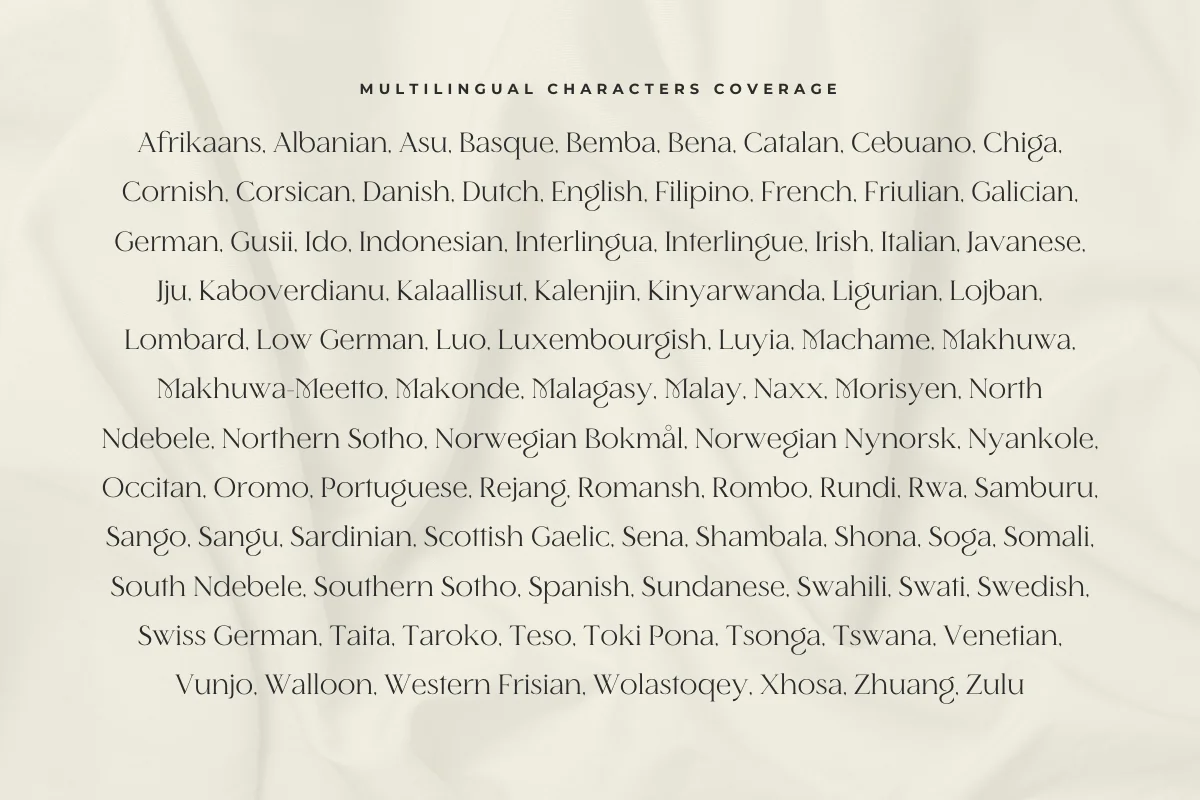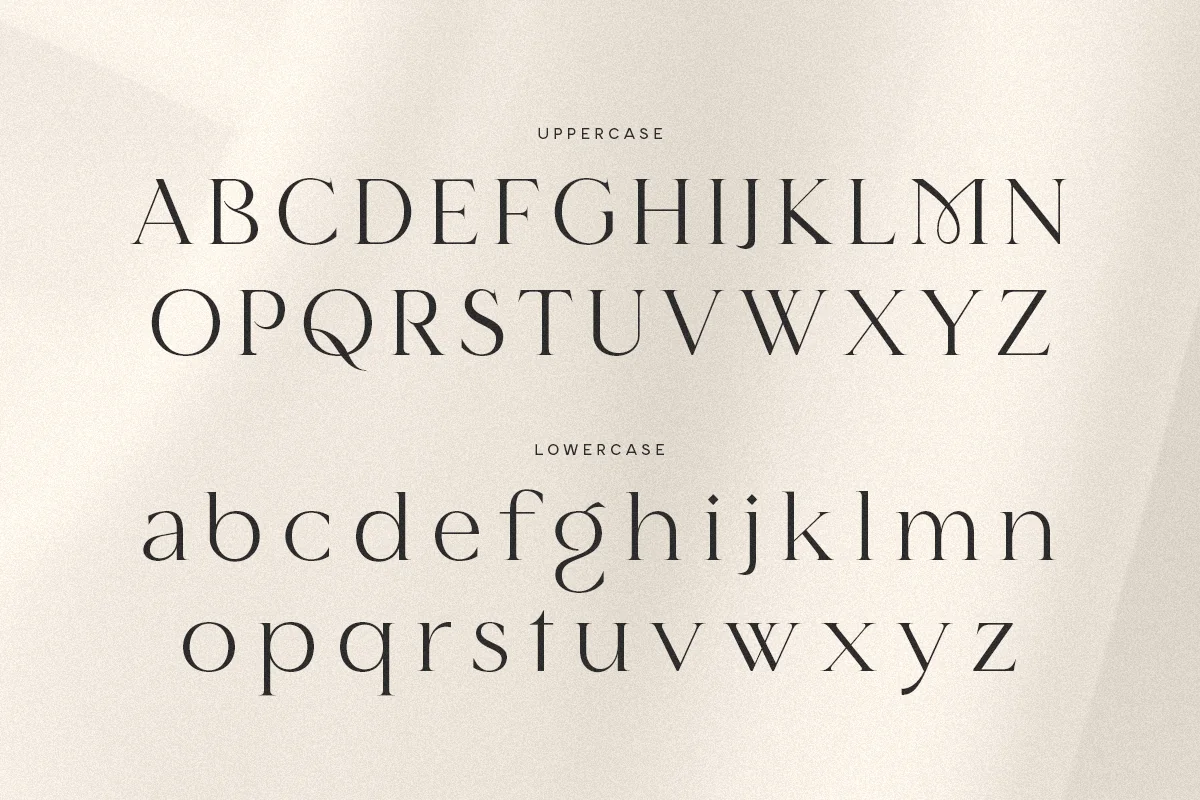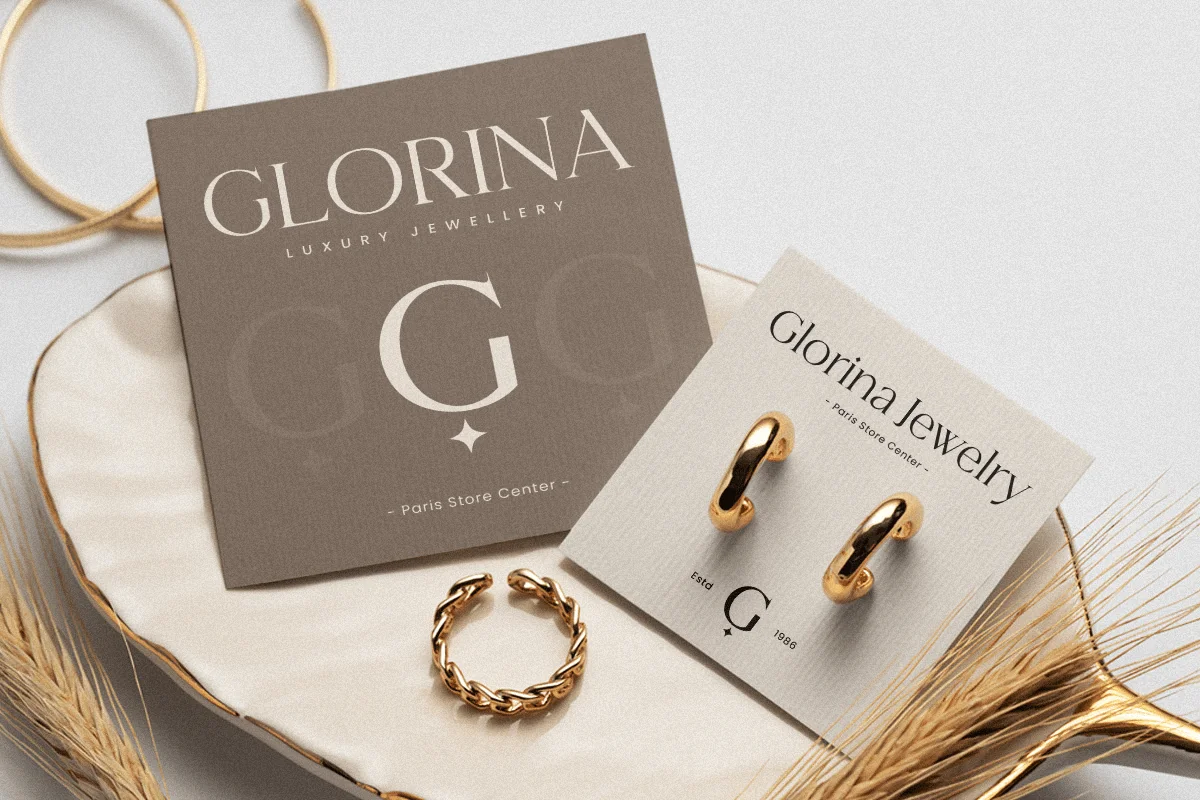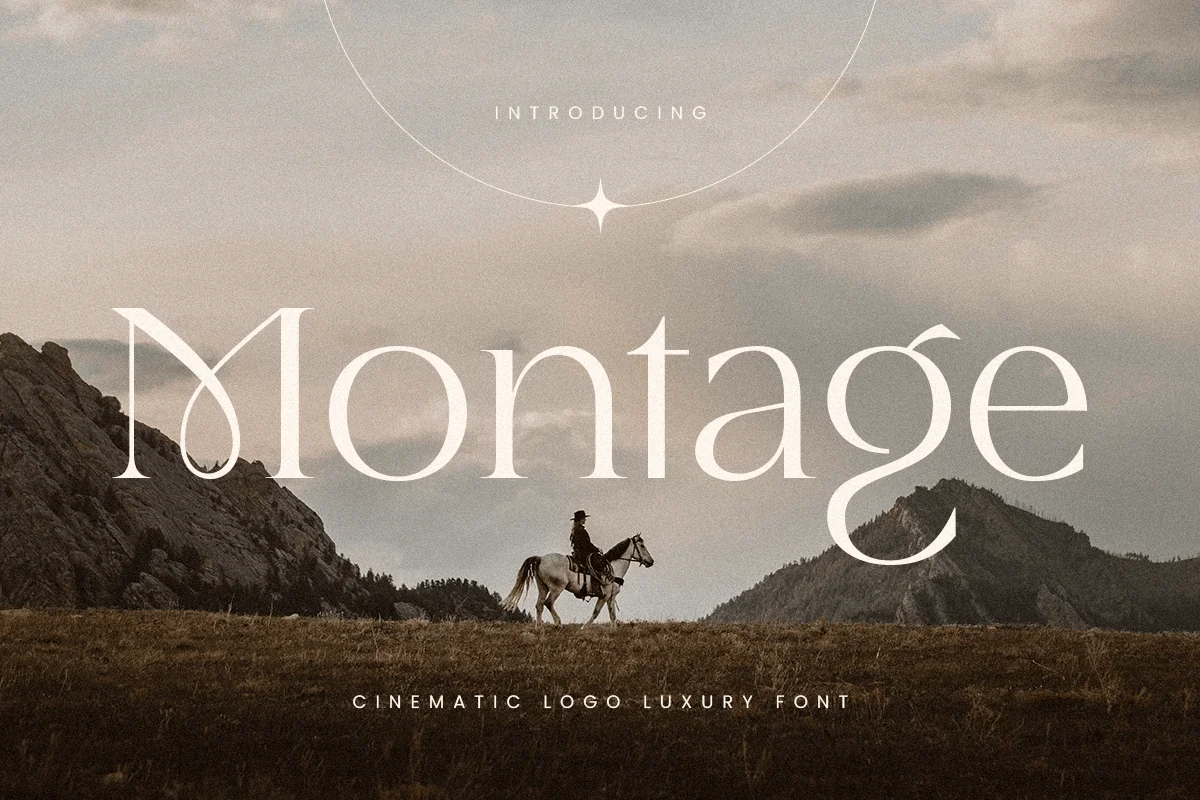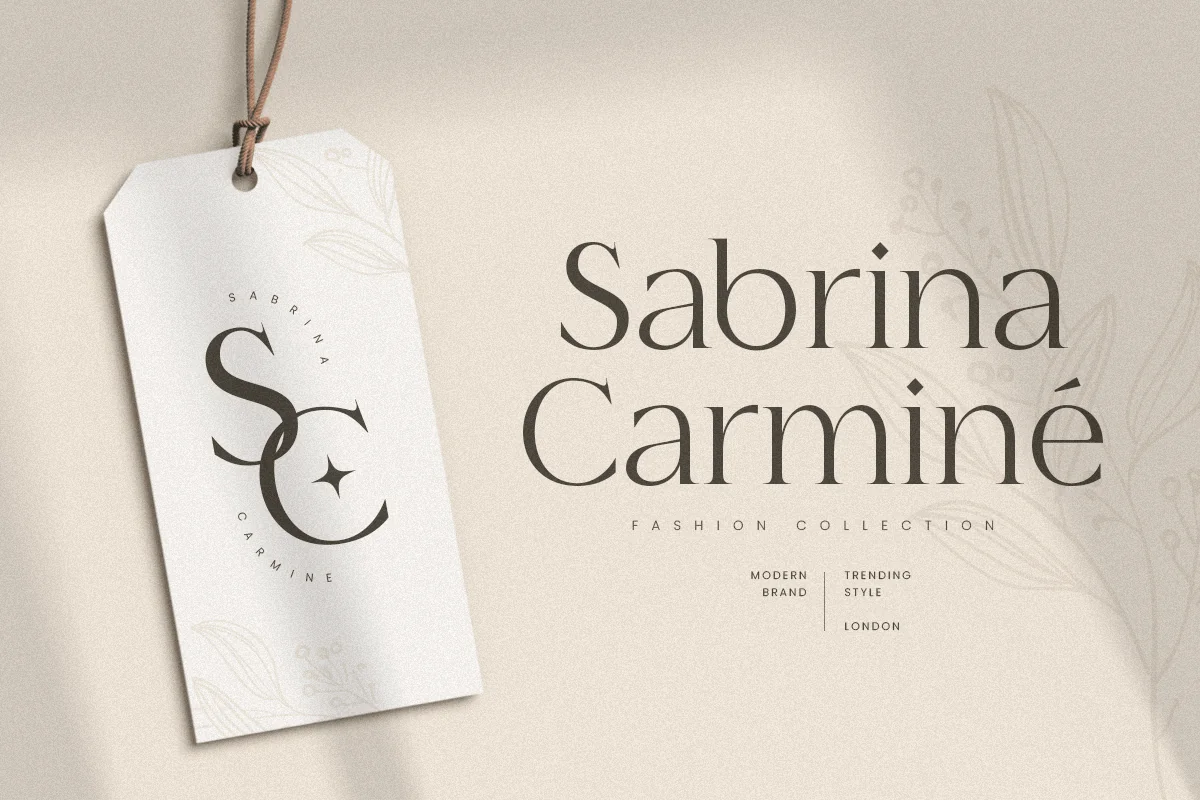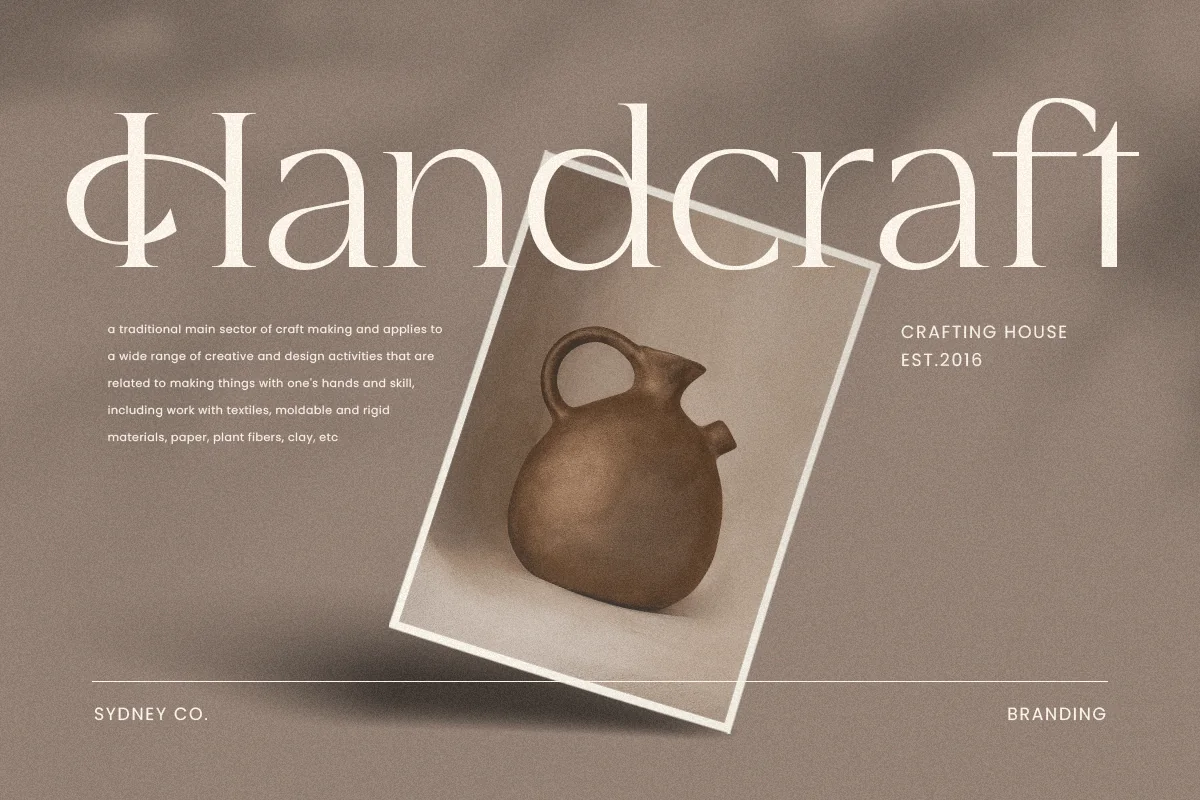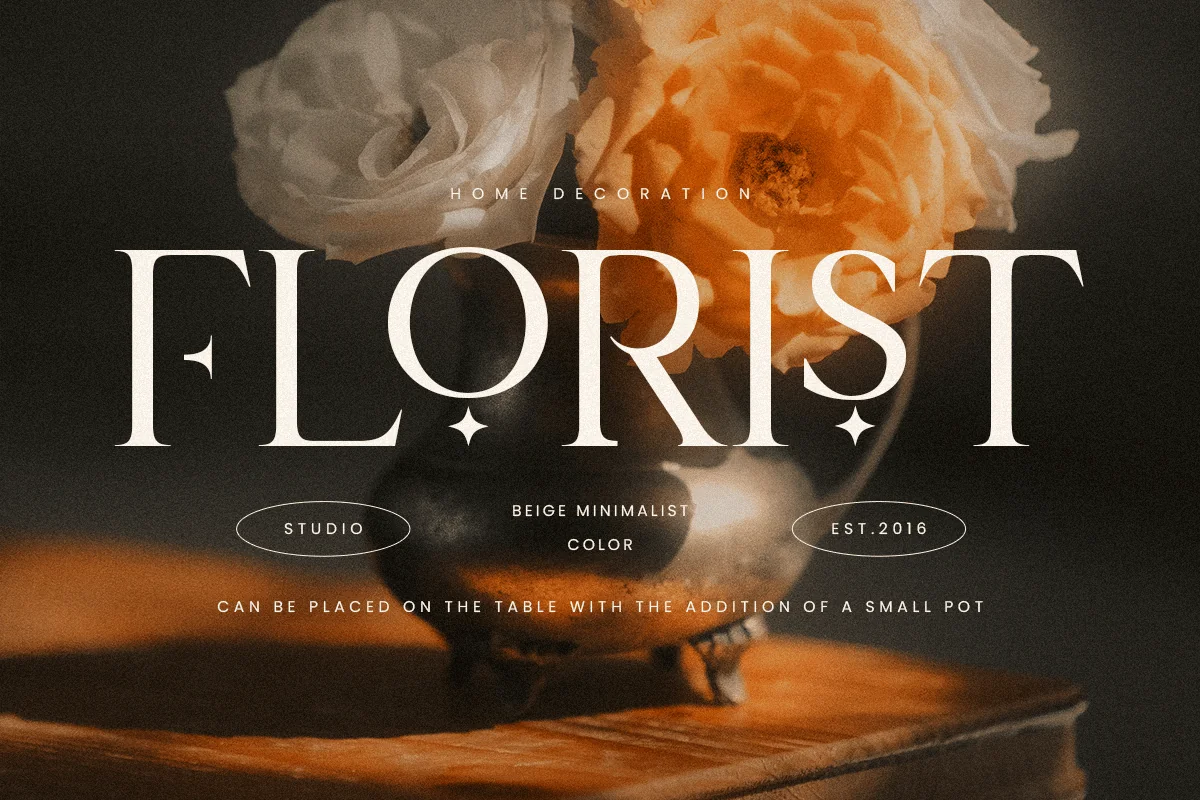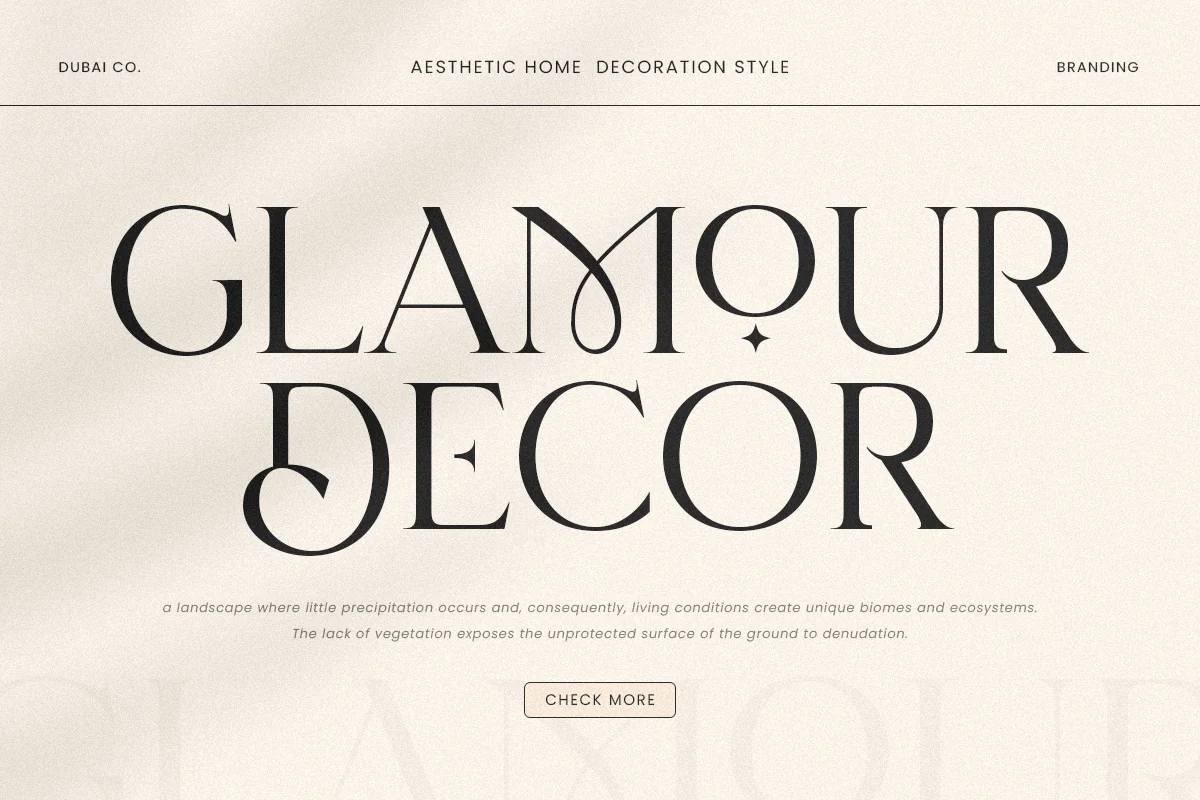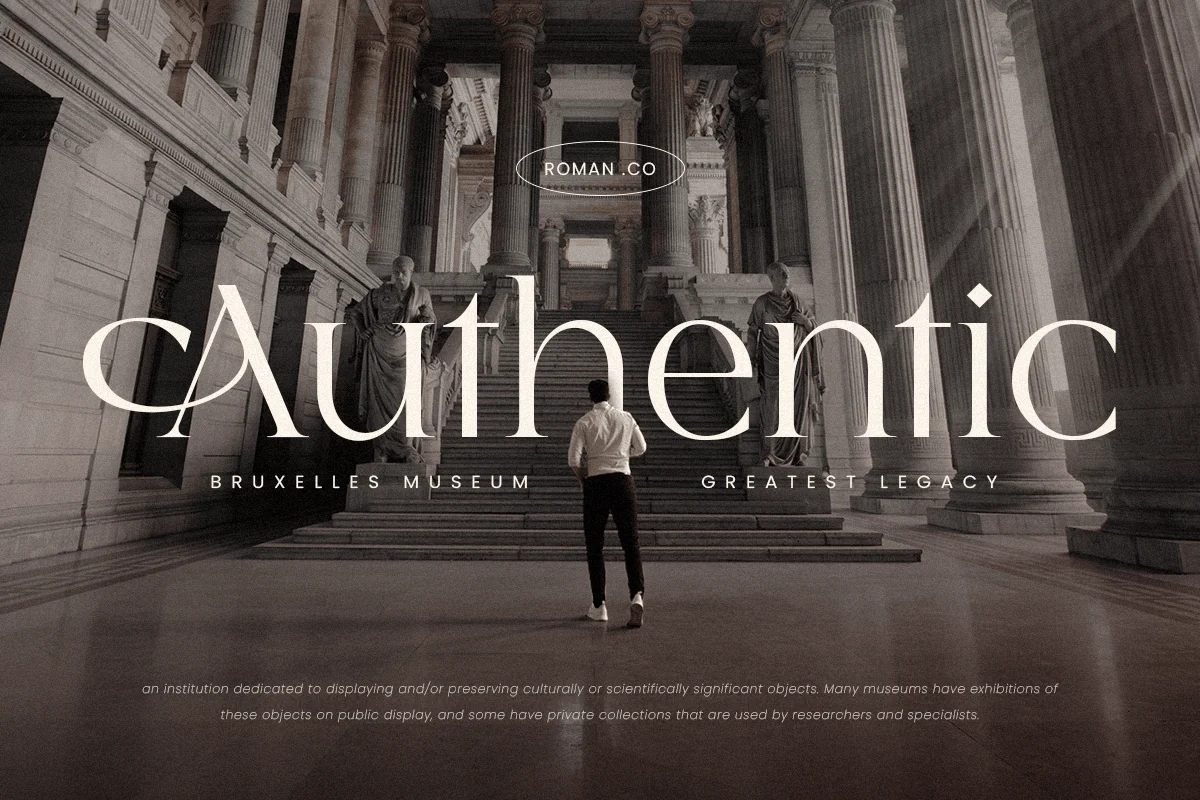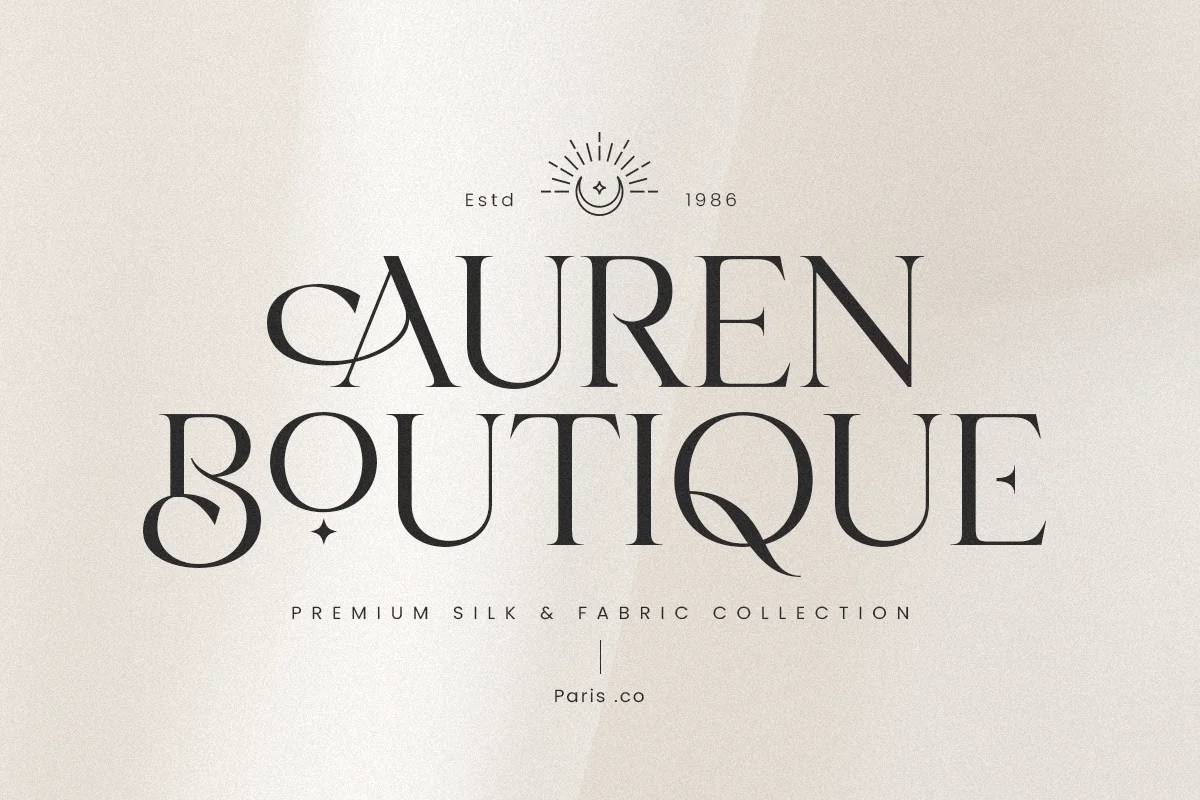
Montage – Cinematic Logo Luxury Font
Montage is a cinematic luxury font designed to bring elegance and sophistication to your high-end design projects. Inspired by the timeless beauty of classic cinema, Montage combines modern aesthetics with a touch of vintage glamour. Ideal for creating stunning logos and refined branding materials, this font is perfect for designers who want to make a bold statement with their work.
The Story Behind Montage:
Montage was born from a passion for the golden age of cinema, where every frame was crafted with care and attention to detail. This font captures that spirit, offering a blend of elegance and modernity that is sure to elevate any project. Whether you’re designing for luxury brands, creating cinematic posters, or crafting stylish logos, Montage provides the perfect balance of sophistication and creativity.
Montage Font Features:
- Elegant Design: Perfect for luxury branding, cinematic posters, and high-end projects.
- Versatile Usage: Ideal for logos, branding, headlines, and stylish designs.
- High Legibility: Ensures your message is communicated effectively with clear and sharp lettering.
- Cinematic Appeal: Combines modern aesthetics with a vintage touch to create a unique and memorable look.
Perfect For:
- Luxury Branding: Create elegant and memorable logos for high-end brands and businesses.
- Cinematic Projects: Design eye-catching movie posters, title sequences, and promotional materials.
- Professional Materials: Develop stylish and sophisticated business cards, letterheads, and office stationery.
- Marketing and Advertising: Enhance brochures, advertisements, and digital campaigns with a touch of luxury.